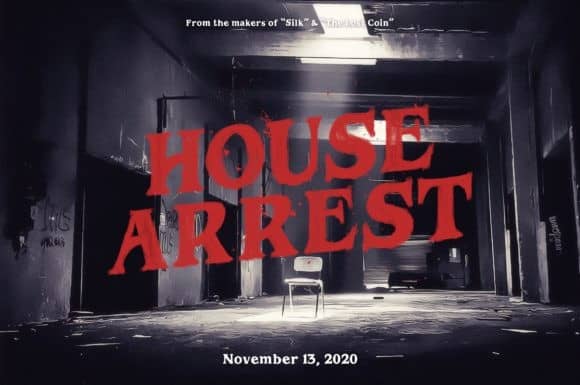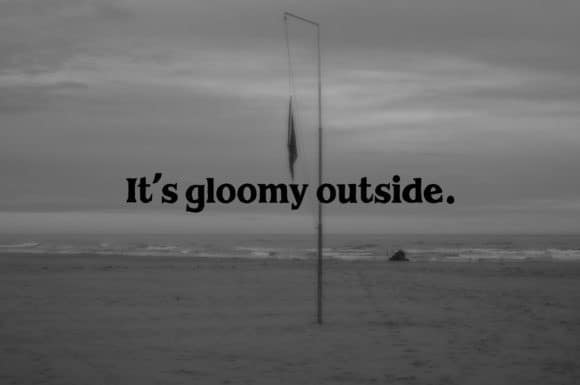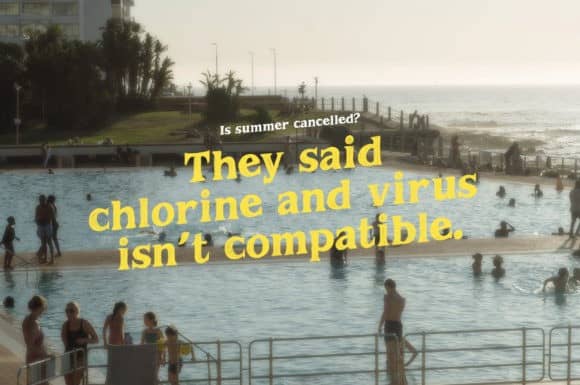
Good Vibrations Serif Font
Good Vibrations Serif Font is a versatile textured font hand-made with black ink and brush. The combination of heavy black ink and a well used sable brush resulted in this versatile type, readable in sizes large and small, yet with a distinctly hand-made and textured feel. Made from font designer named Ryn Pojas. It’s a simple and neat serif font. It can easily be matched to an incredibly large set of projects, so add it to your creative ideas and notice how it makes them stand out!